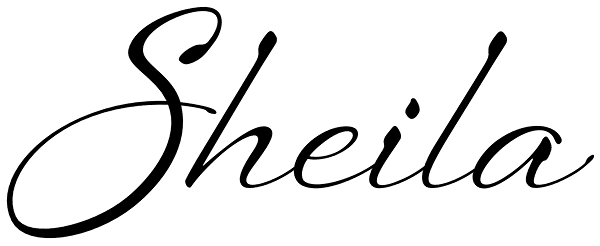
Sheila
Sheila strikes the perfect balance between casual handwriting and careful calligraphy, making it both approachable and aspirational. Put Sheila’s airy, breezy letterforms to use in friendly or feminine settings like inspirational quotes and fashion...
Sheila
Sheila Bold